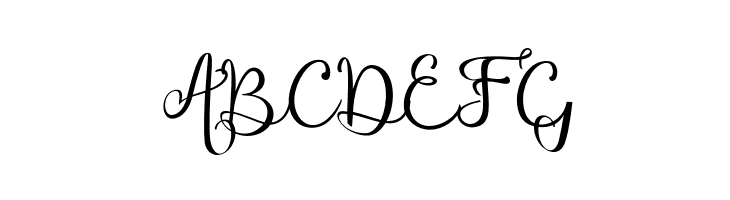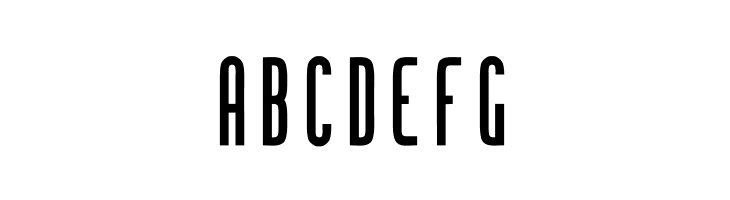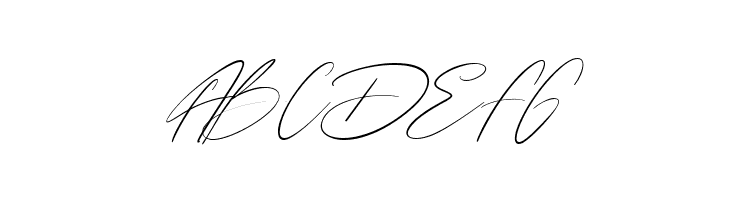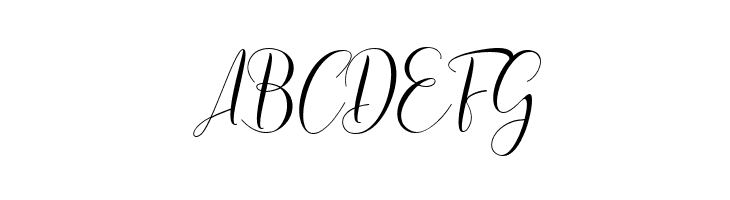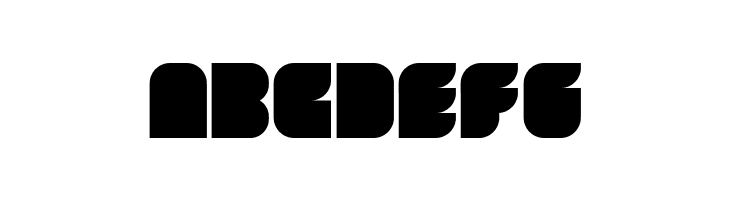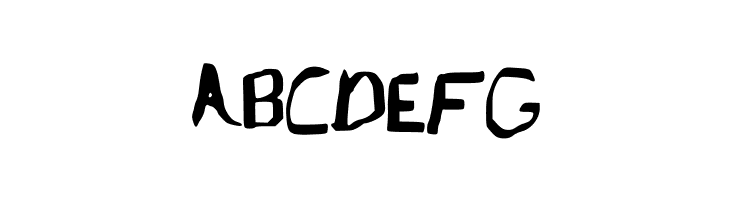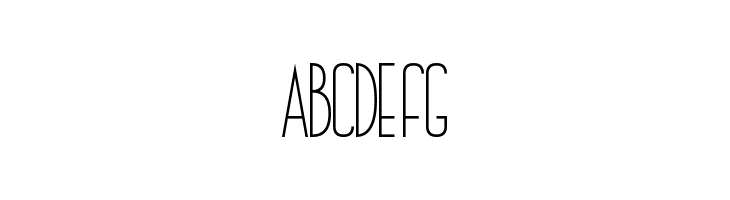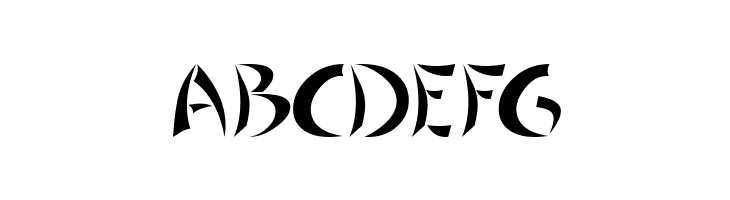
• ChingChangRegular
• CHINGCHAY
( Fonts by Mehibi )
A bold, geometric font with rounded edges and a blocky design.
• Chinger
A sleek, modern font with elongated, narrow characters and clean lines.
• Chingolo Pro
• Chinoiseries
• Chinoiseries Tryout
• chinthiawhite-Regular
An elegant and flowing script font with intricate loops and swirls.
• chinthiawhite-Regular
An elegant script font with intricate loops and swashes, perfect for sophisticated designs.
• Chinthya Free Regular
An elegant script font with flowing, interconnected letters and ornate flourishes.
• Chintia Free
An elegant, flowing script font with delicate strokes and graceful curves.